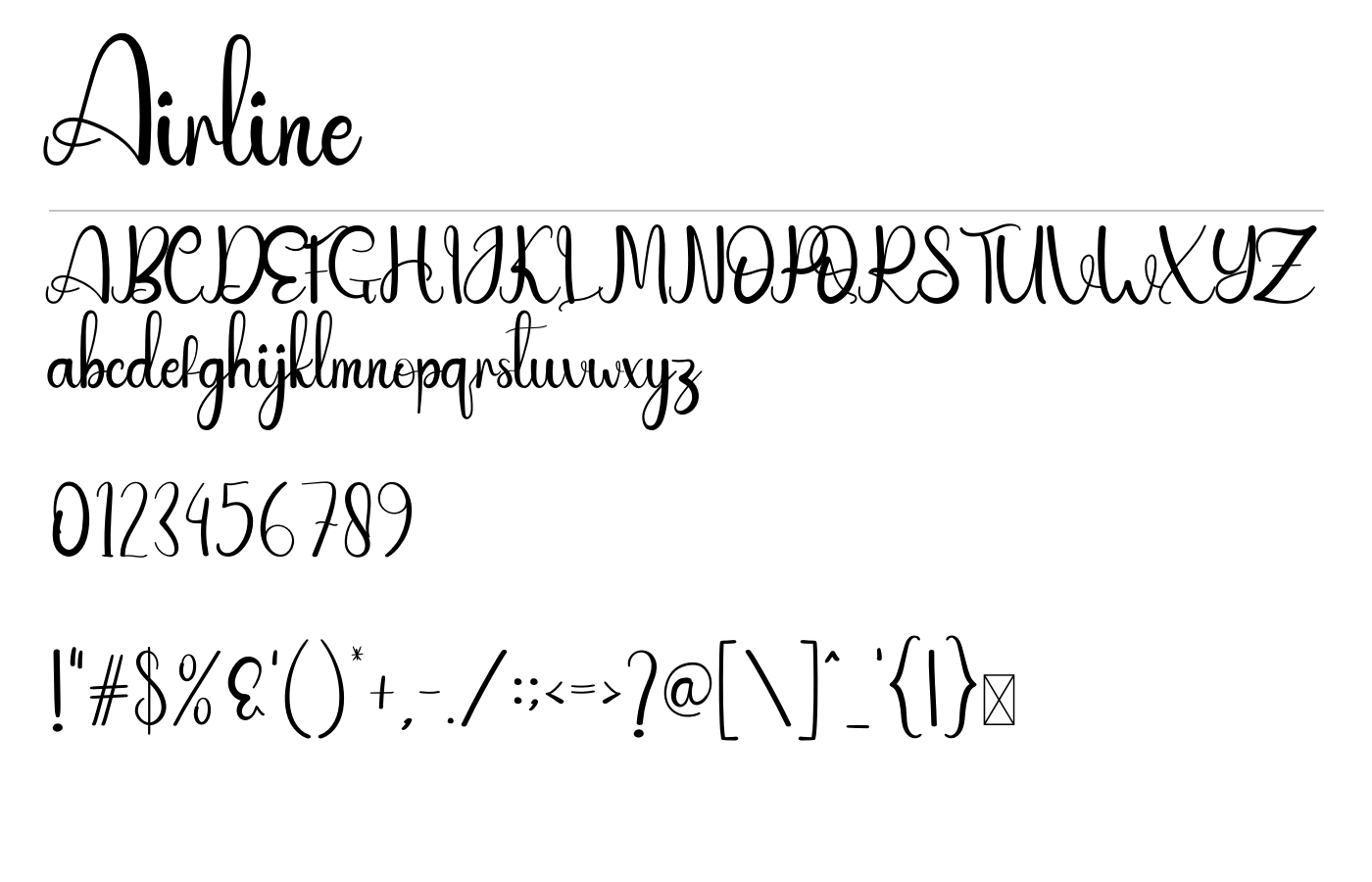
Airline Font is a charming, handwritten script with a playful and elegant feel, featuring slender strokes and unique looping details that give it a friendly, personal touch. Its tall, narrow letterforms and slightly whimsical character make it ideal for creative branding, casual invitations, and stylish headlines where a light, approachable aesthetic is desired. This font works beautifully for projects that need a blend of sophistication and warmth without feeling too formal.
Airline Font